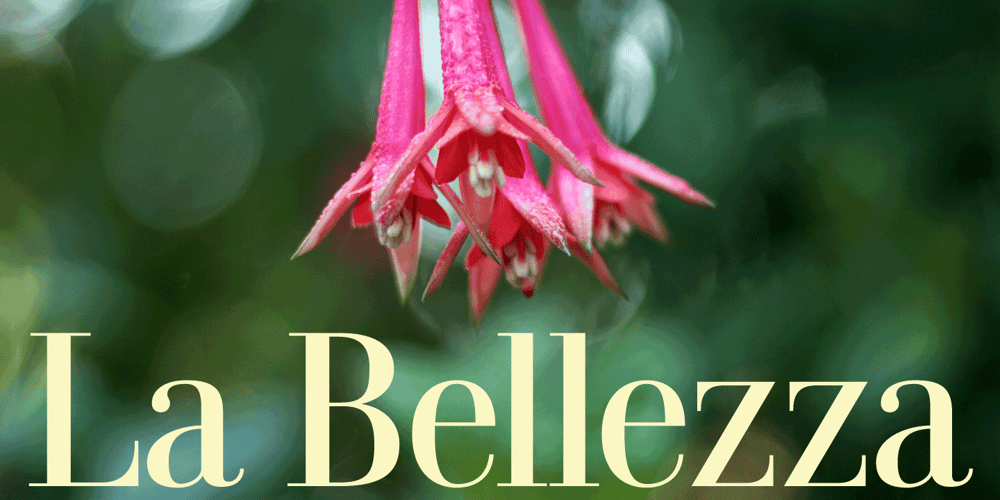
Dionisio Font Family was designed by Jason Castle and published by CastleType. Dionisio contains 10 styles and family package options. Dionisio, a CastleType original, takes its inspiration from one of the overlooked treasures of the CastleType library: Ransahoff. The latter is extremely condensed and very elegant. I particularly like its hairline slab serifs and cross-bars. I decided to use it as a starting point for a new design, but to make the proportions more classic and to make it more sensuous with gentler curves and bracketed cross-bar serifs. The result is very Bodoni-like, but less extreme and more contemporary looking. Meanwhile, Dionisio maintains a hint of Ransahoff with condensed letterforms and very fine serifs. Dionisio brings together the best of both, making it the perfect choice where a slender, sophisticated typeface is needed. Dionisio is available in two widths: normal and condensed, five fonts each. Includes an extensive character set and OpenType features.